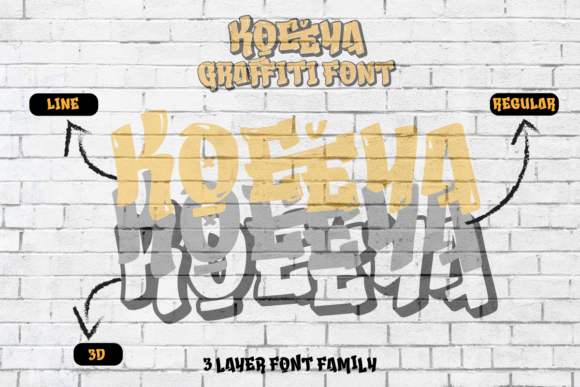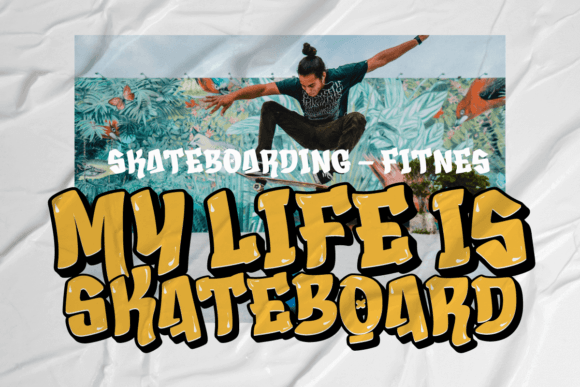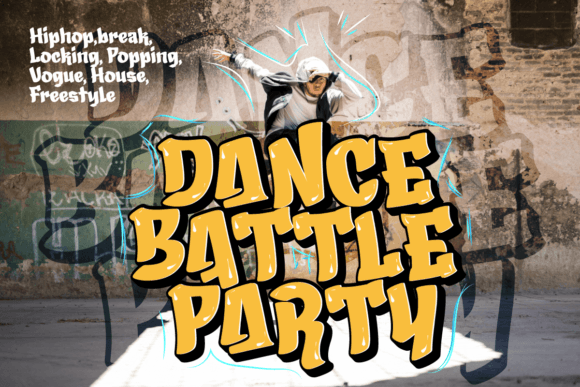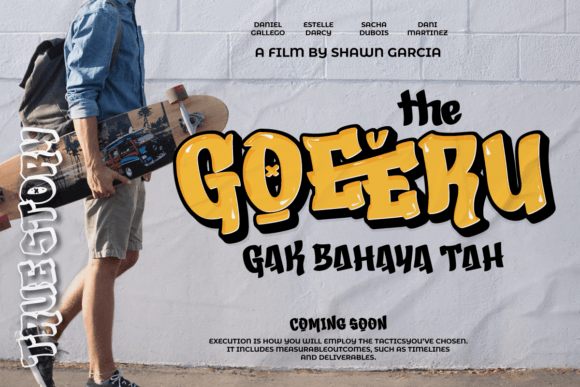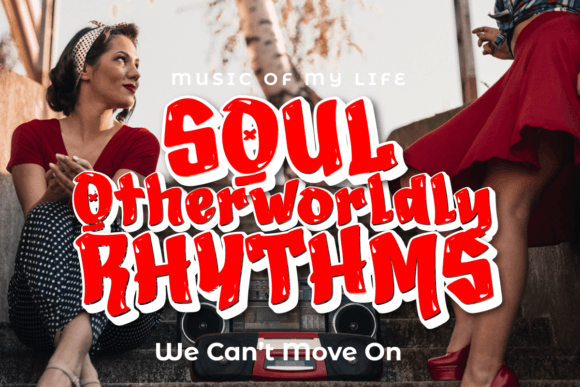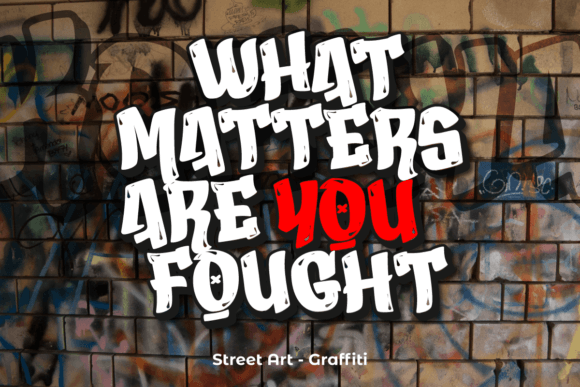
Introduction to Koeeya Font
Koeeya is a font with a charming Display Graffiti theme.
Created to give your projects a touch of freedom and uniqueness, Available in three different variations, Koeeya provides flexibility and the opportunity to express your creativity in limitless ways You can choose between solid and plain styles, dramatic shadows, or interesting textures.
Key Features of Koeeya Font
Why Choose Koeeya Font?
Koeeya Font offers exceptional quality and versatility, making it a valuable addition to your design toolkit. Whether you’re creating for personal projects or commercial use, Koeeya Font delivers professional results.